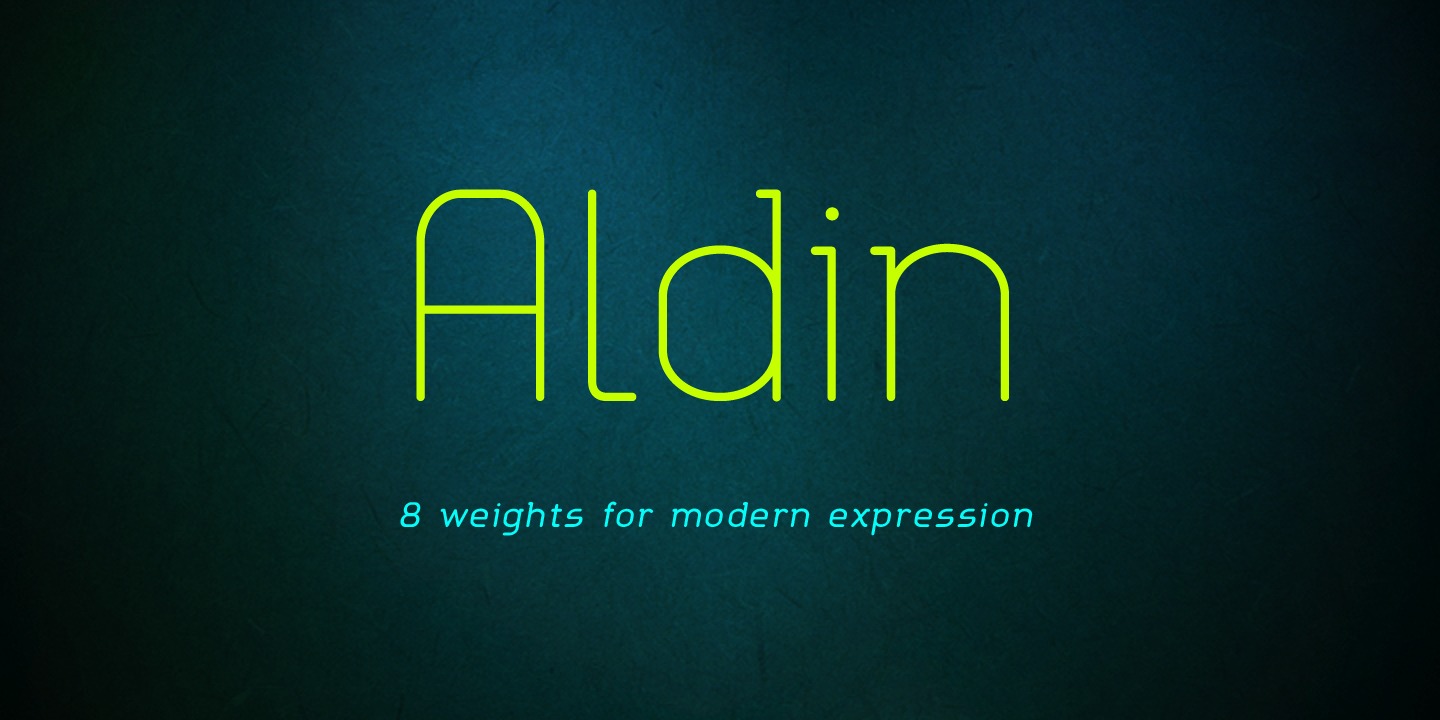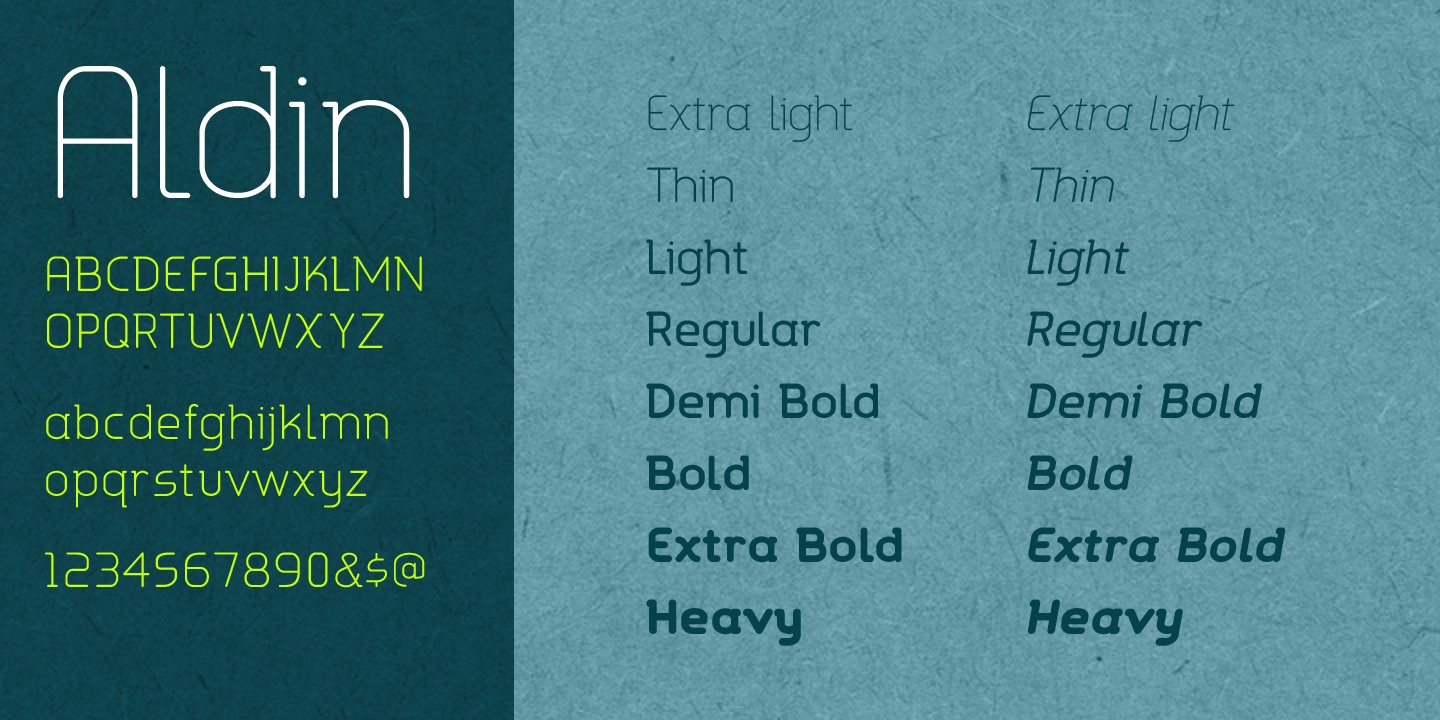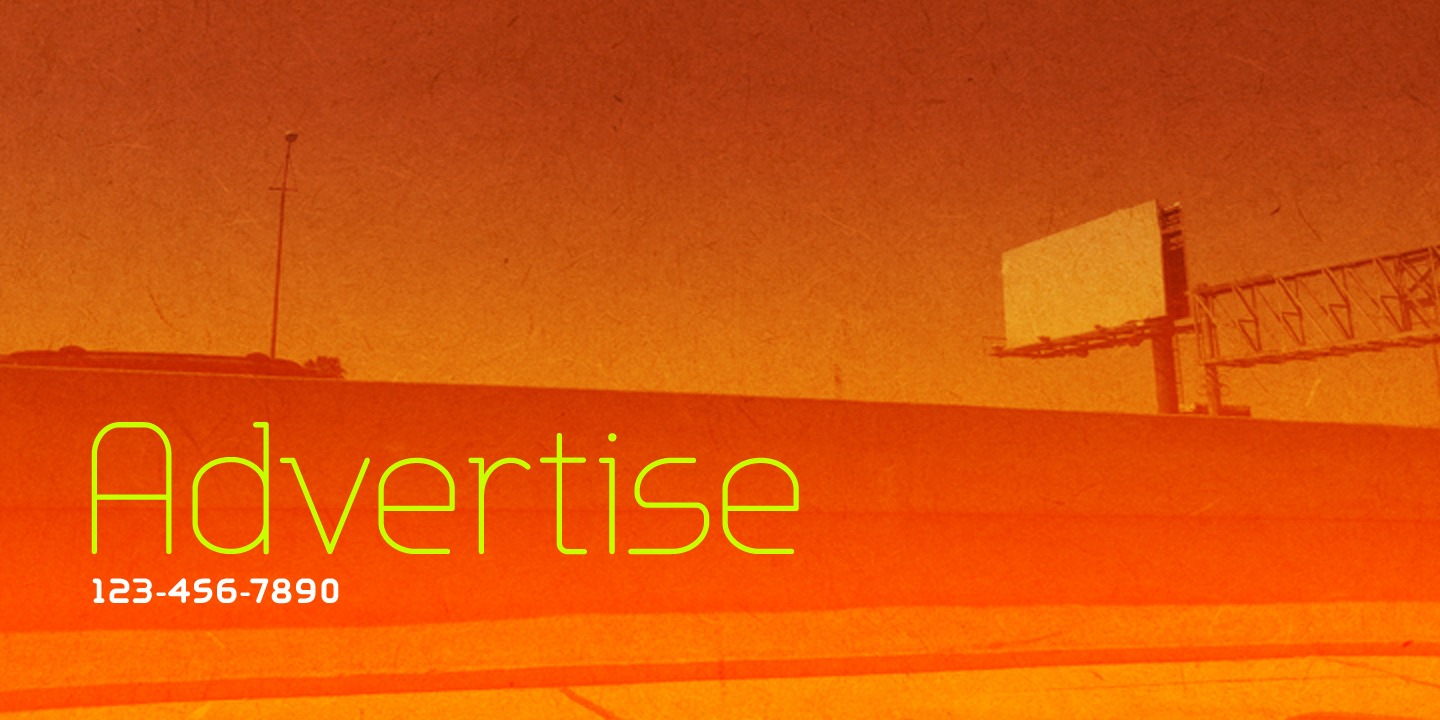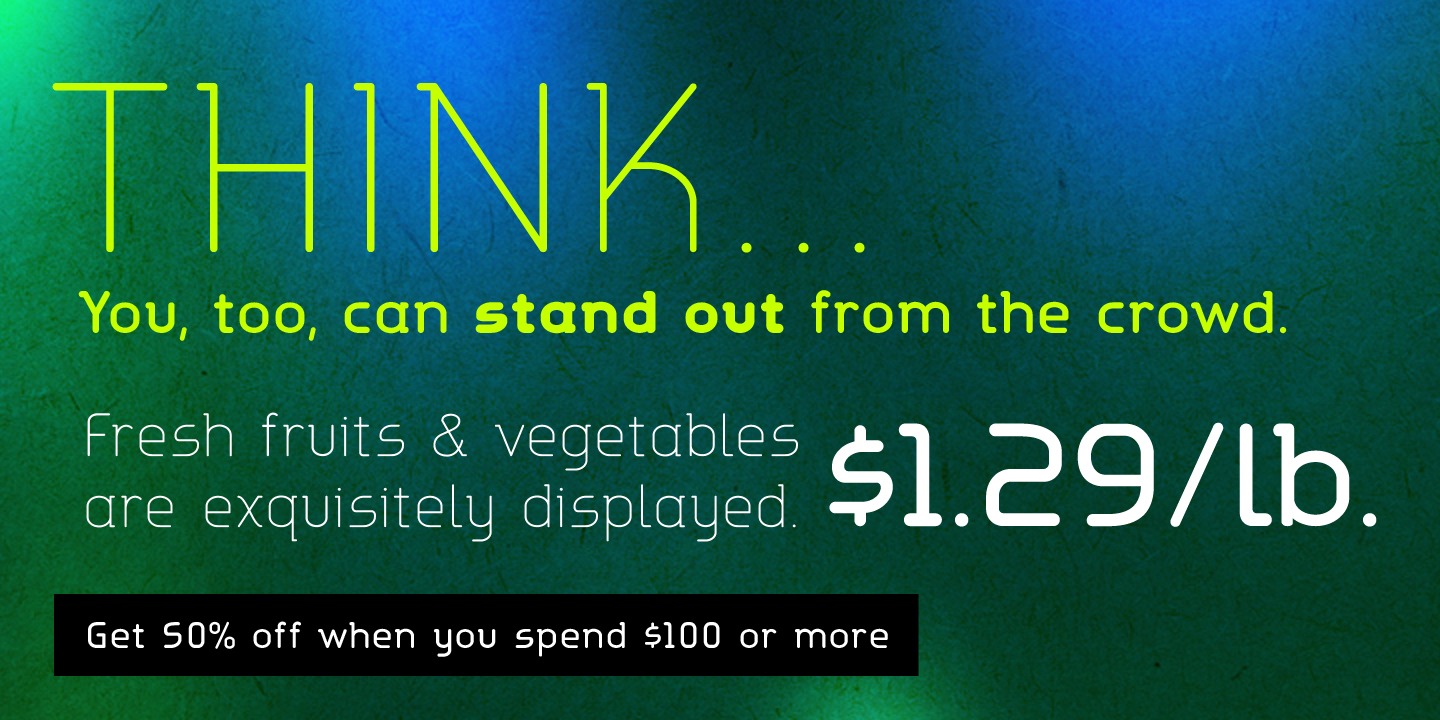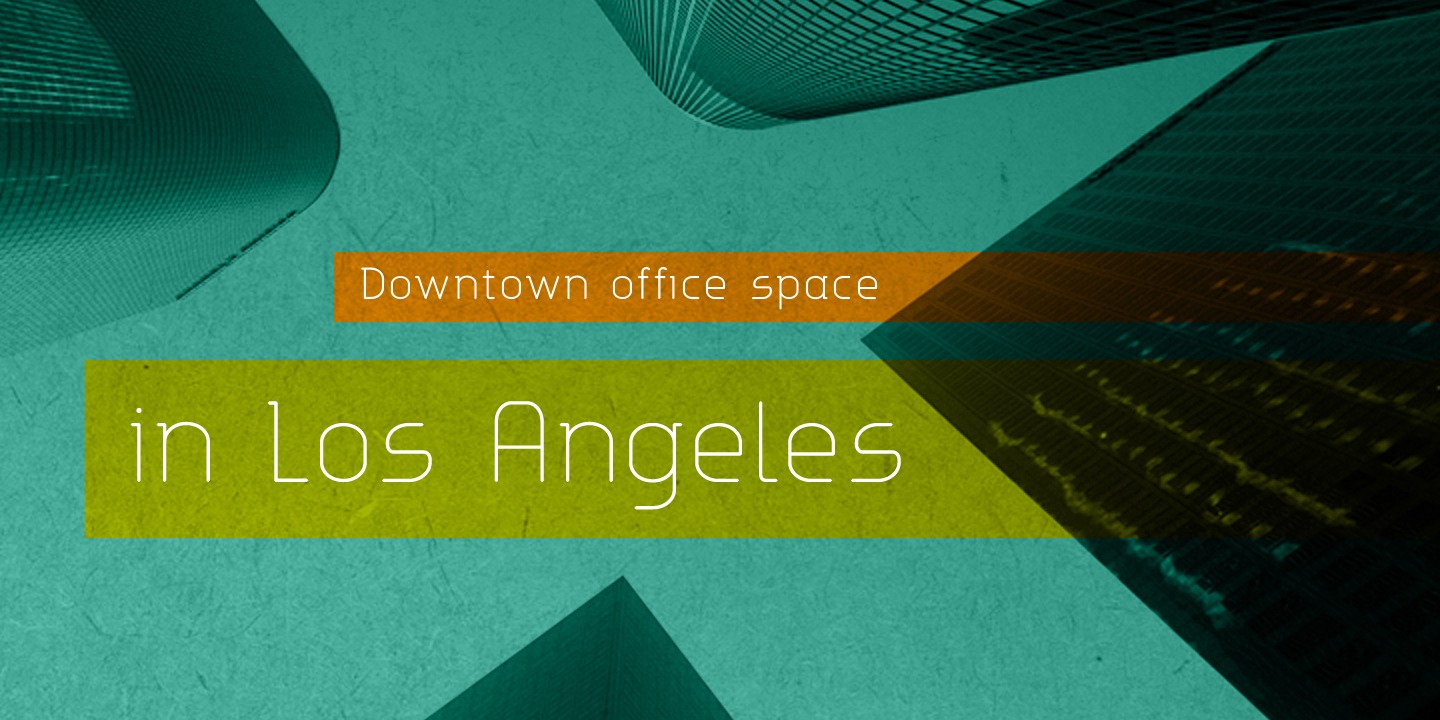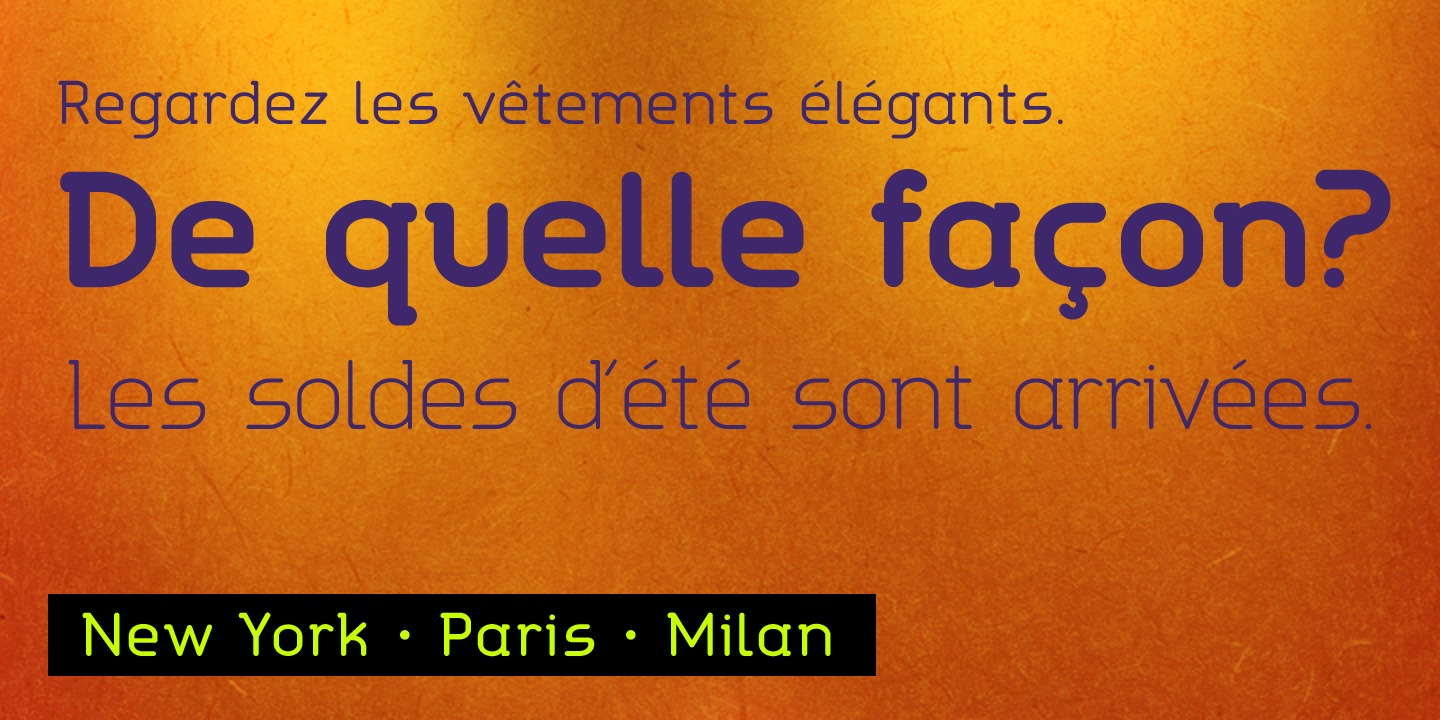
Aldin
Font Family by Open Window
Aldin is a stylish and modern typeface based on geometric forms. It is best suited for headlines and subheads but can also work in short paragraphs. Its character makes it a good choice for magazines, advertisements, packaging or logotypes for the fashion or tech industries?particularly the thinner weights. Thicker weights also allow the option for more contrast among elements.